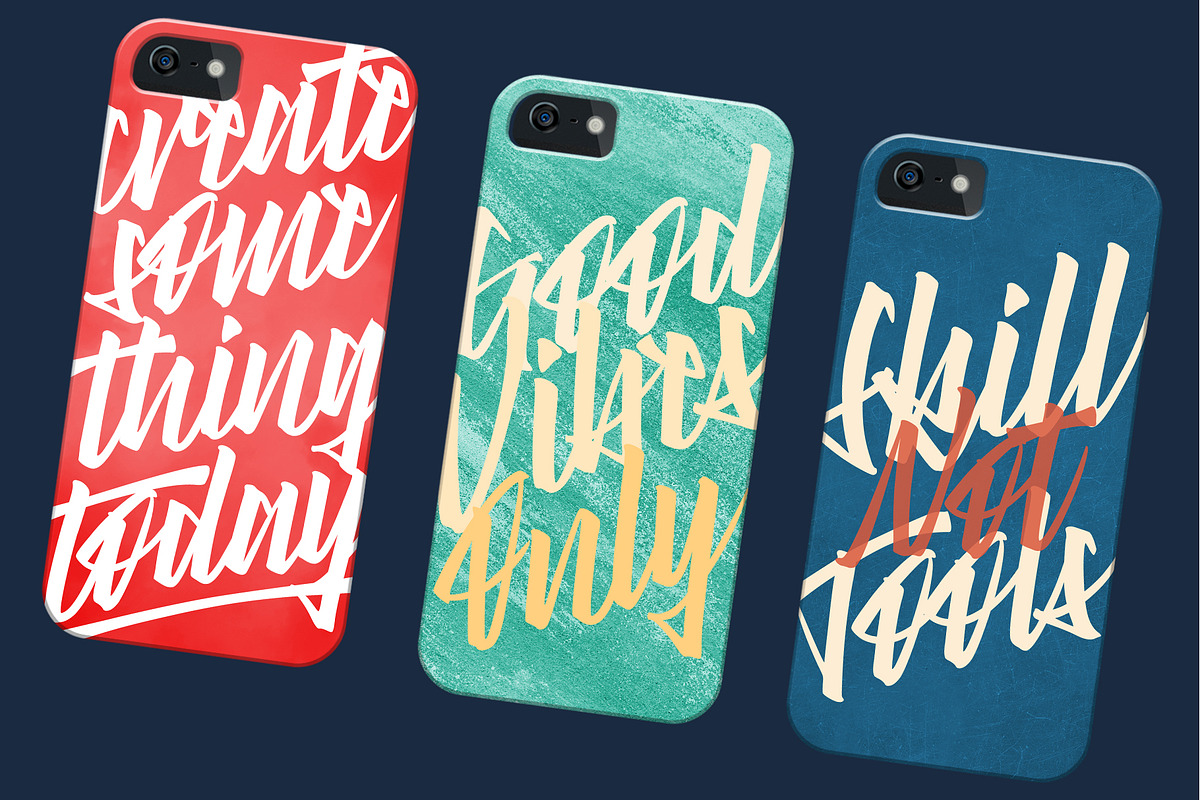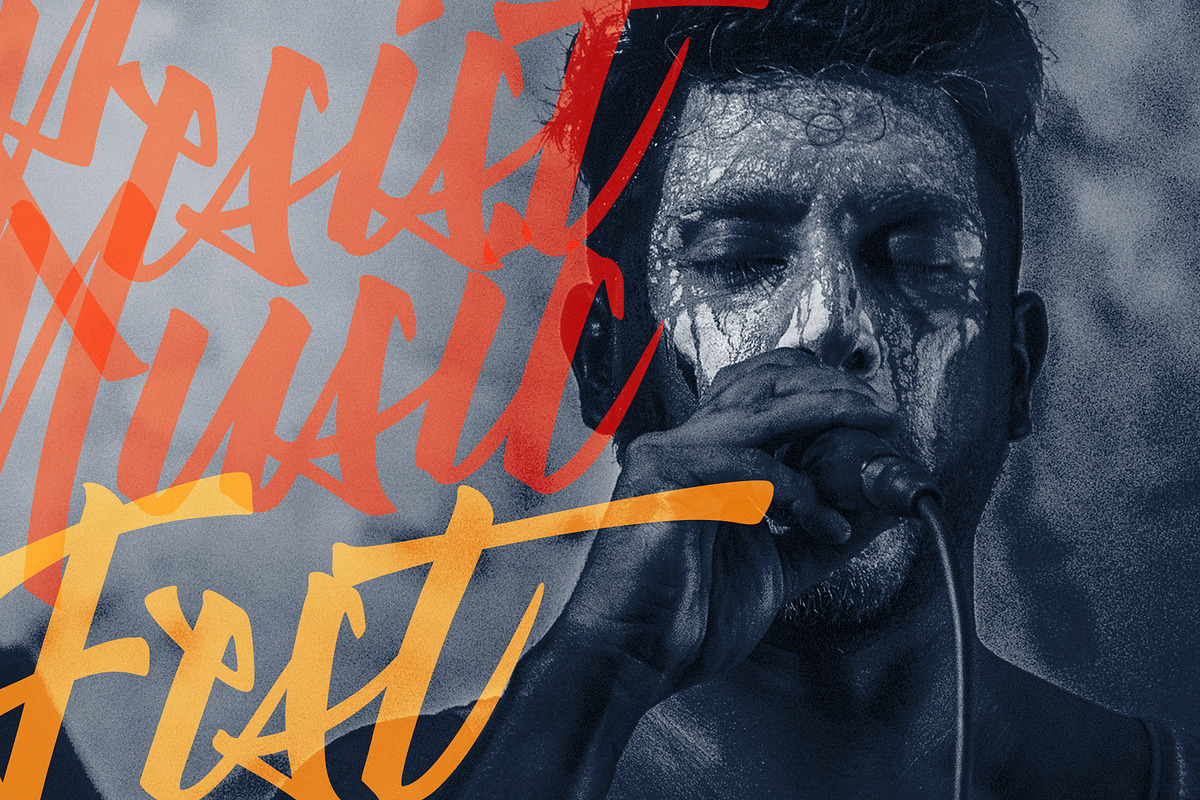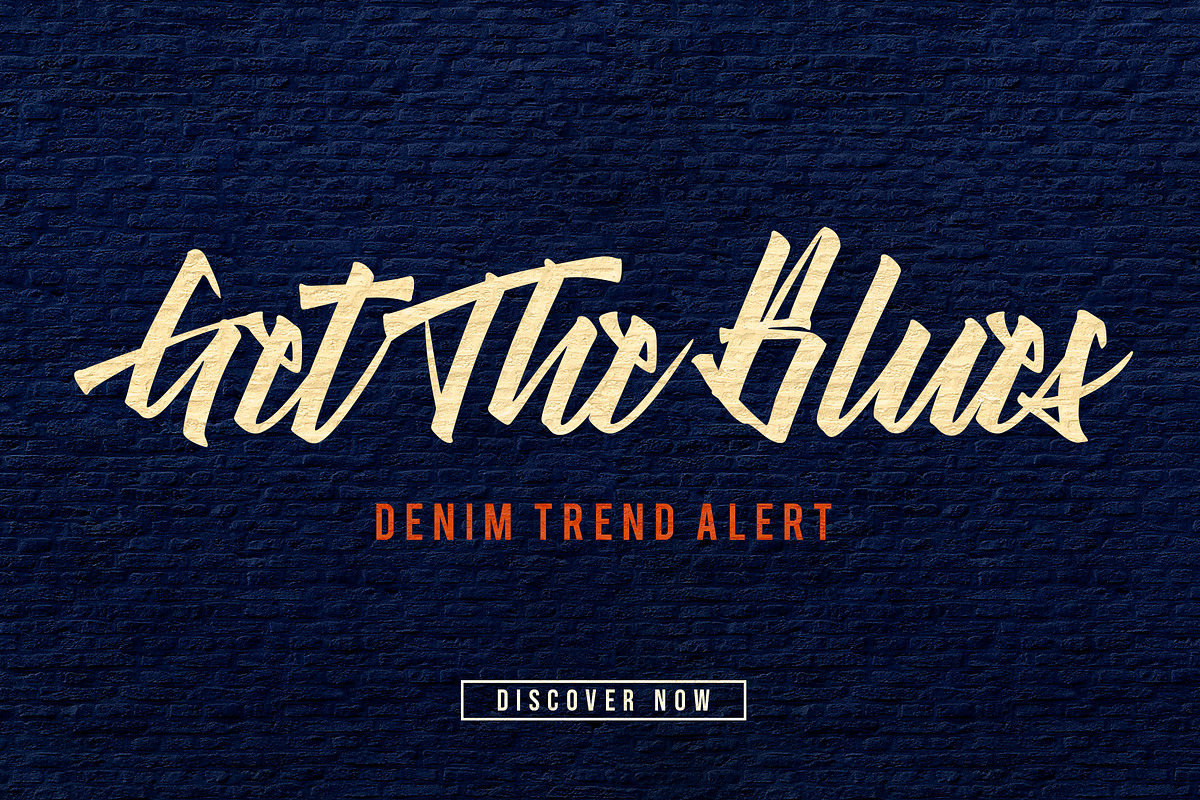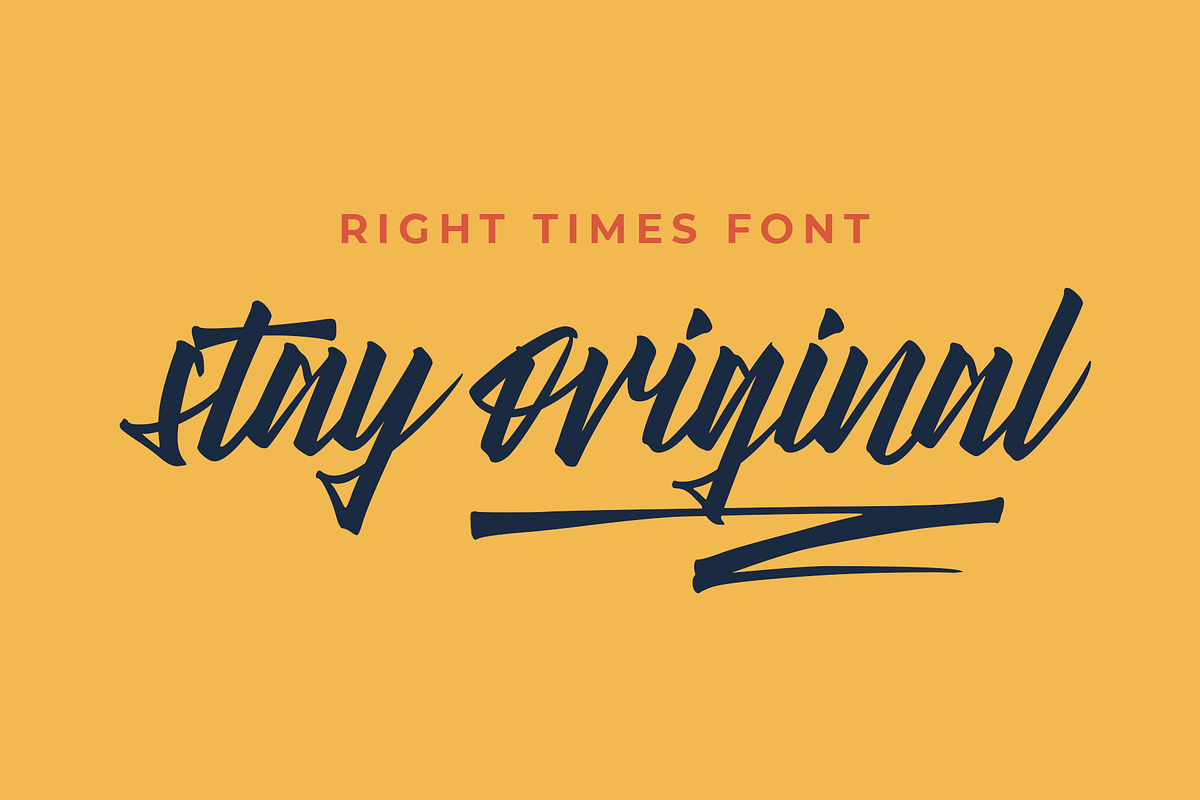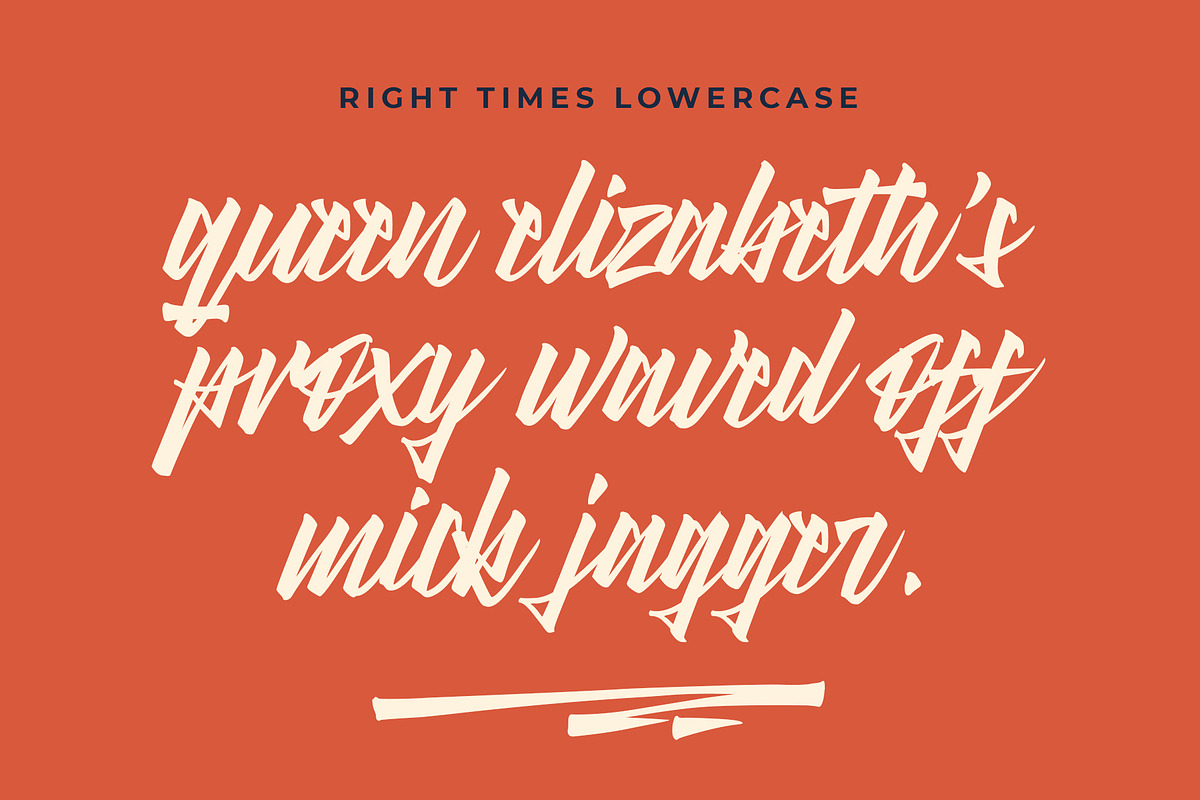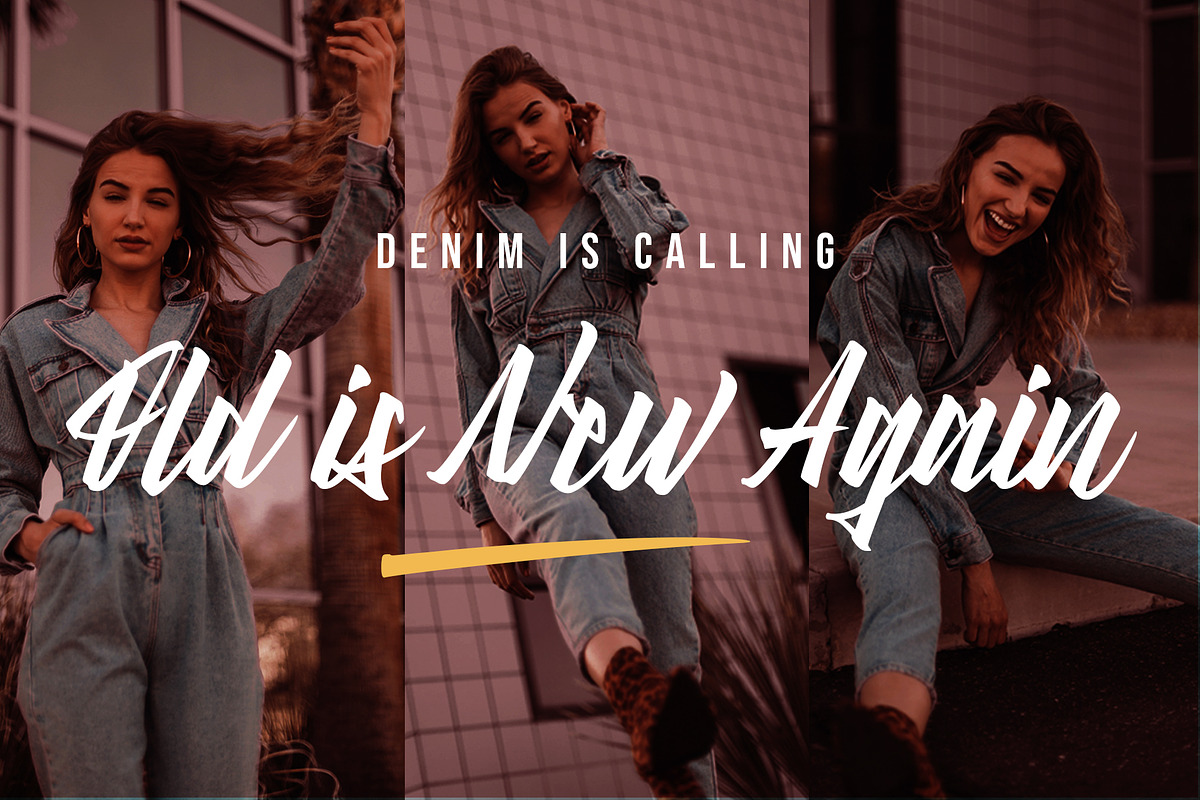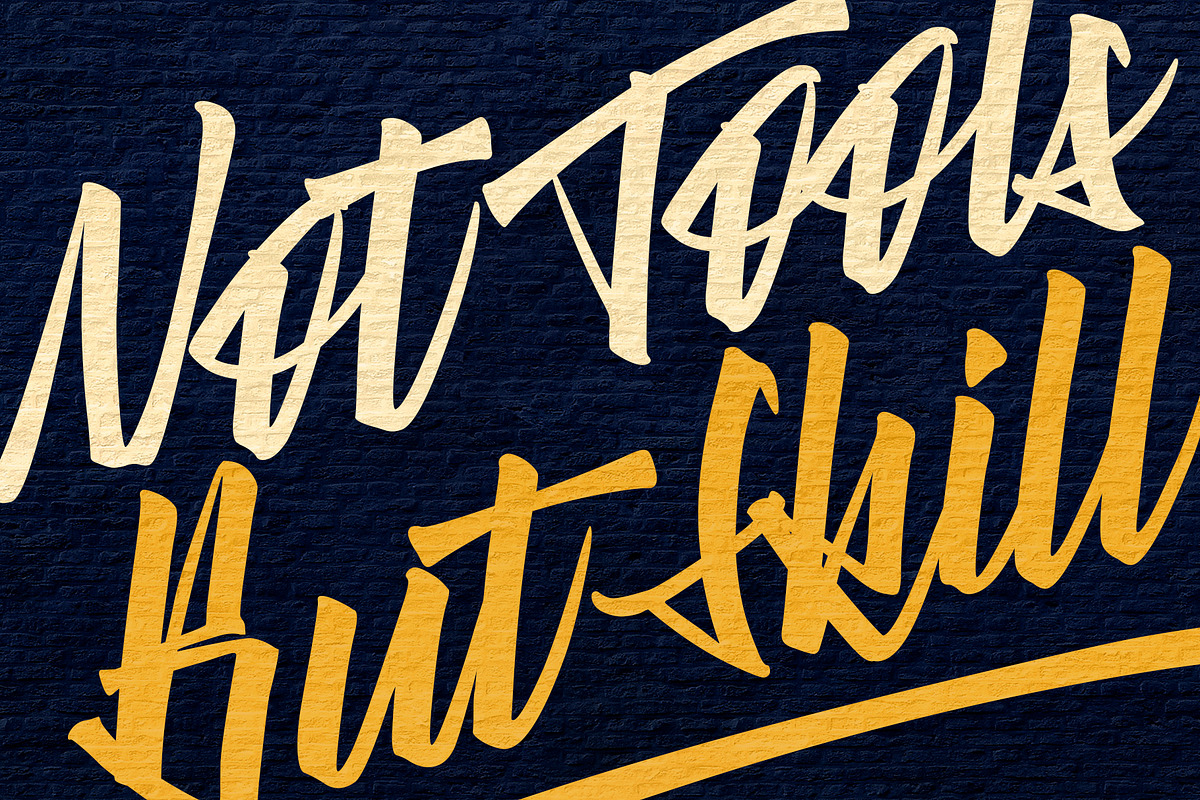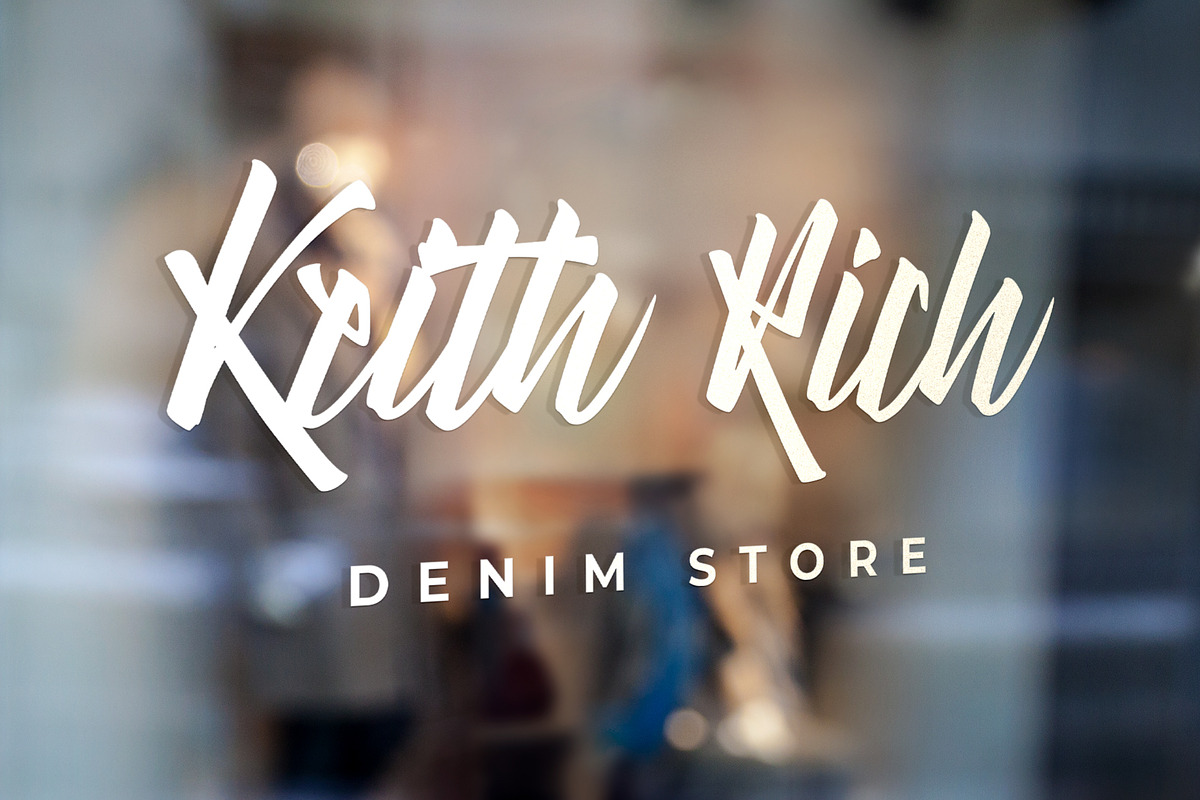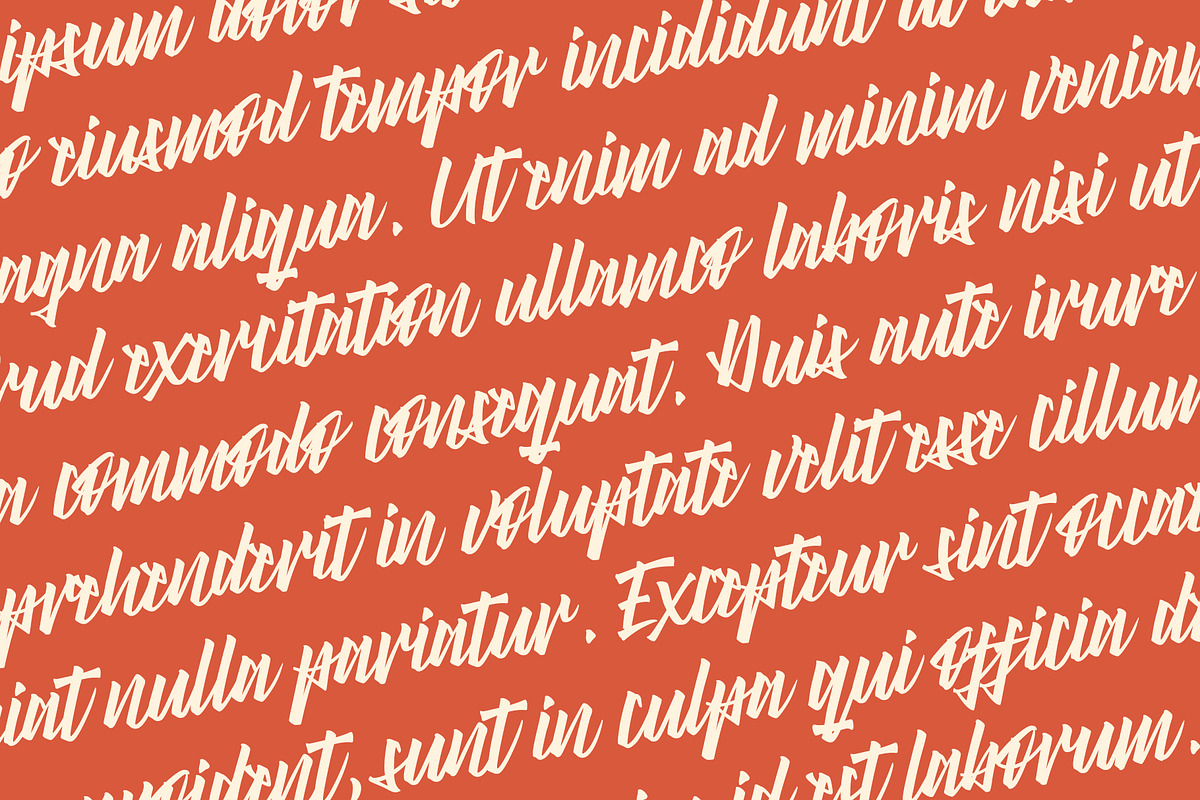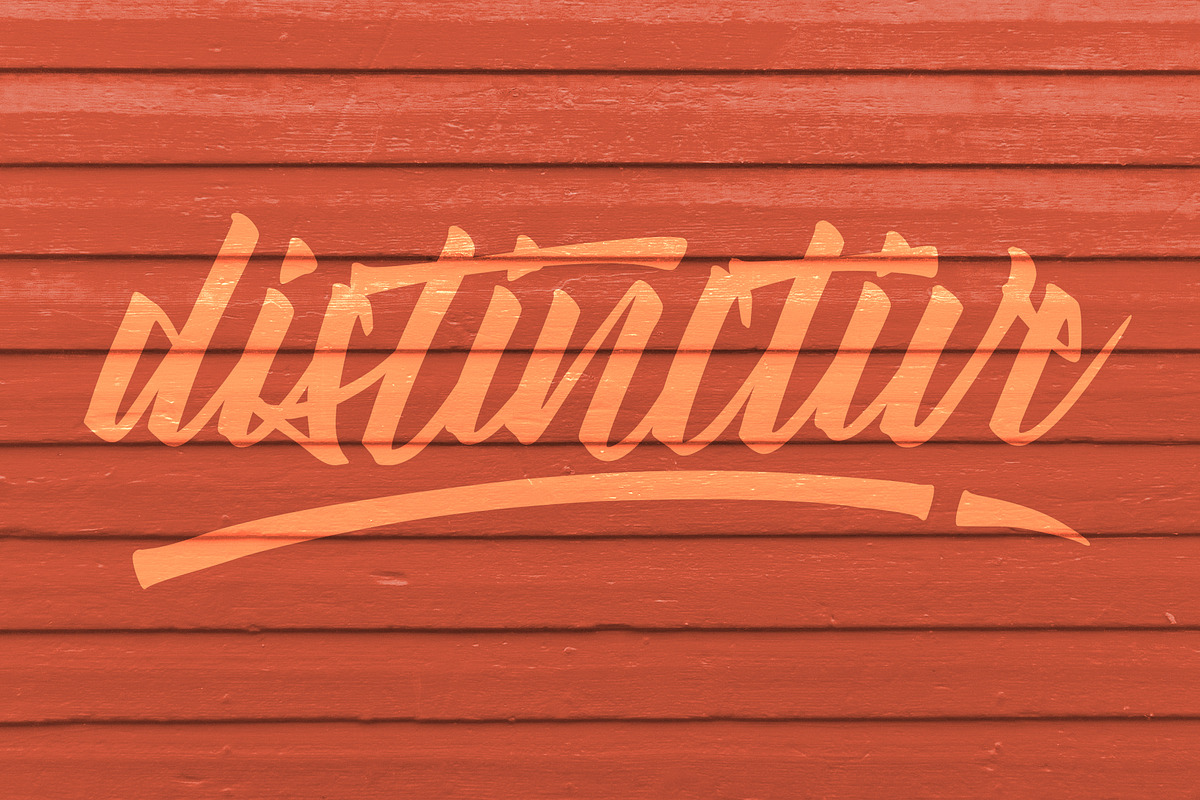
Right Times Font
This is The Right Time to use 'Right Times Font'
Presenting Right Times Font! A Distinct Brush Script. This font made with the perfect combining of each character. It looks original and can be used for all your project needs. This font can be used at any time and any project. So, Right Times Font can't wait to give its touch to all your design projects such as quotes, poster design, personal branding, promotional materials, logotype, product packaging, brand sign, fashion, denim fashion, just overlay on the image, etc.
1. Right Times Font • It's comes with uppercase, lowercase, ligatures, numeral, punctuation, symbols, and multilingual support (Afrikaans, Albanian, Catalan, Danish, Dutch, Estonian, English, Finnish, German, Icelandic, Indonesian, Italian, Malay, Norwegian, Portuguese, Spanish, Swedish, Zulu, and Many More). Extra Glyphs: ligature tt, alternate t1 and t2, alternate r1 and r2
2. Extra Swashes • It's comes with 11 swashes (underline). Just type S_1 S_2 S_3 S_4 S_5 S_6 S_7 S_8 S_9 S_10 S_11 to feature it.
- The Multilingual Glyphs Features: ÀÁÂÃÄÅÆÇÈÉÊËÌÍÎÏÐÑÒÓÔÕÖØŒÞŠÙÚÛÜŸÝŽßàáâãäåæçèéêëìíîïñòóôõöøœþšùúûüýÿž